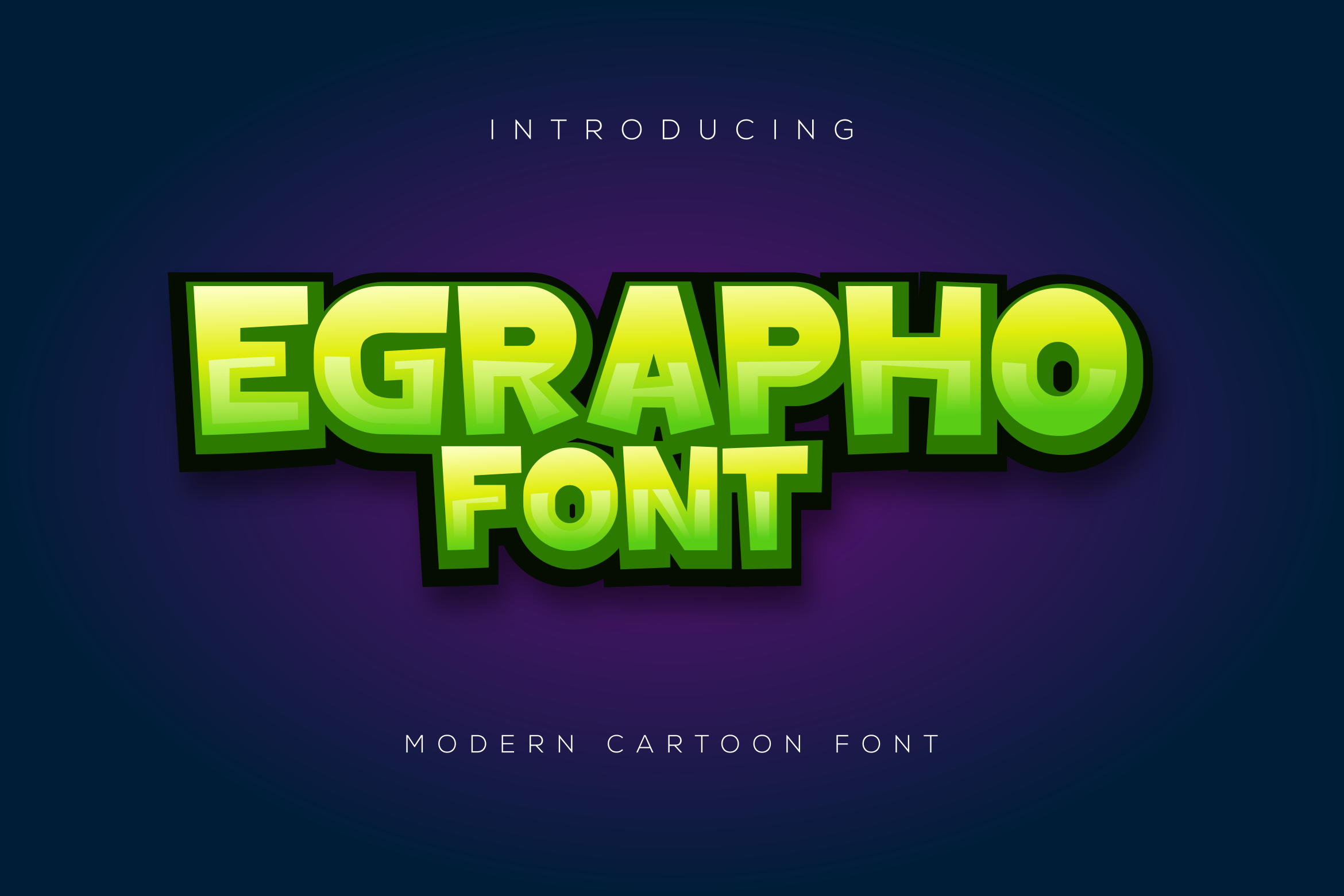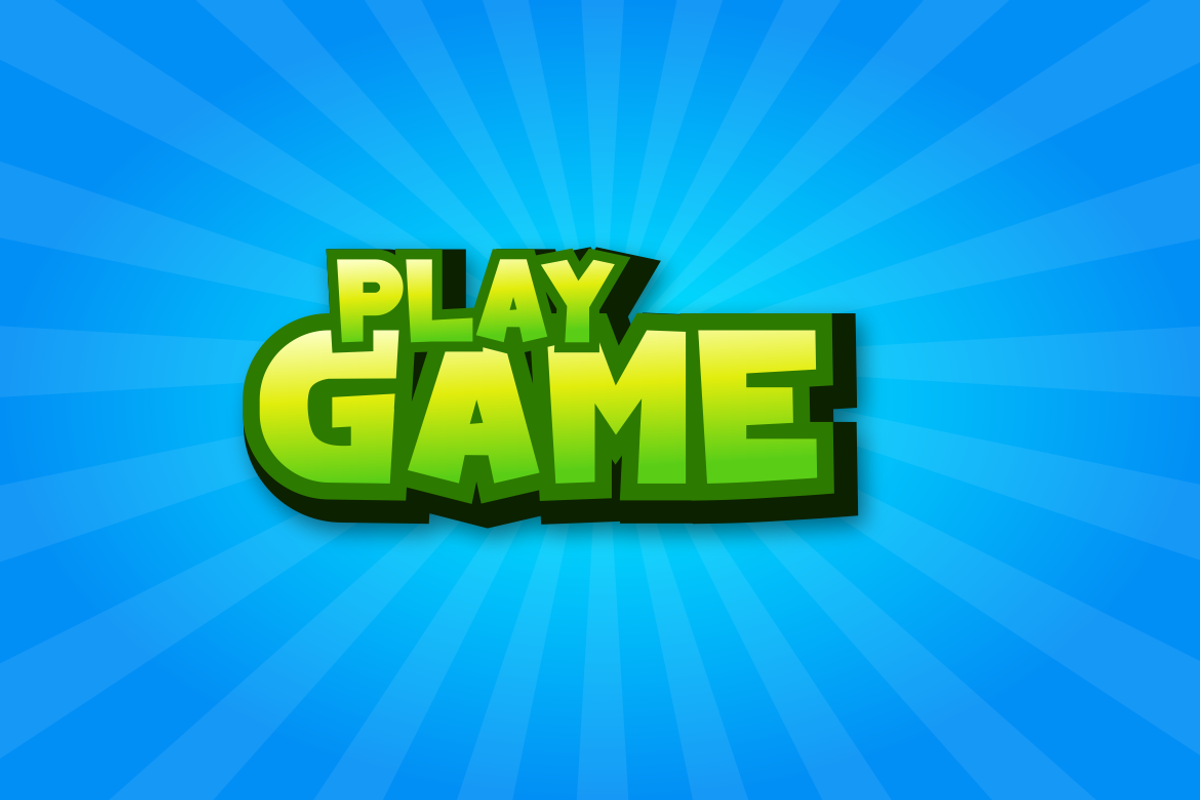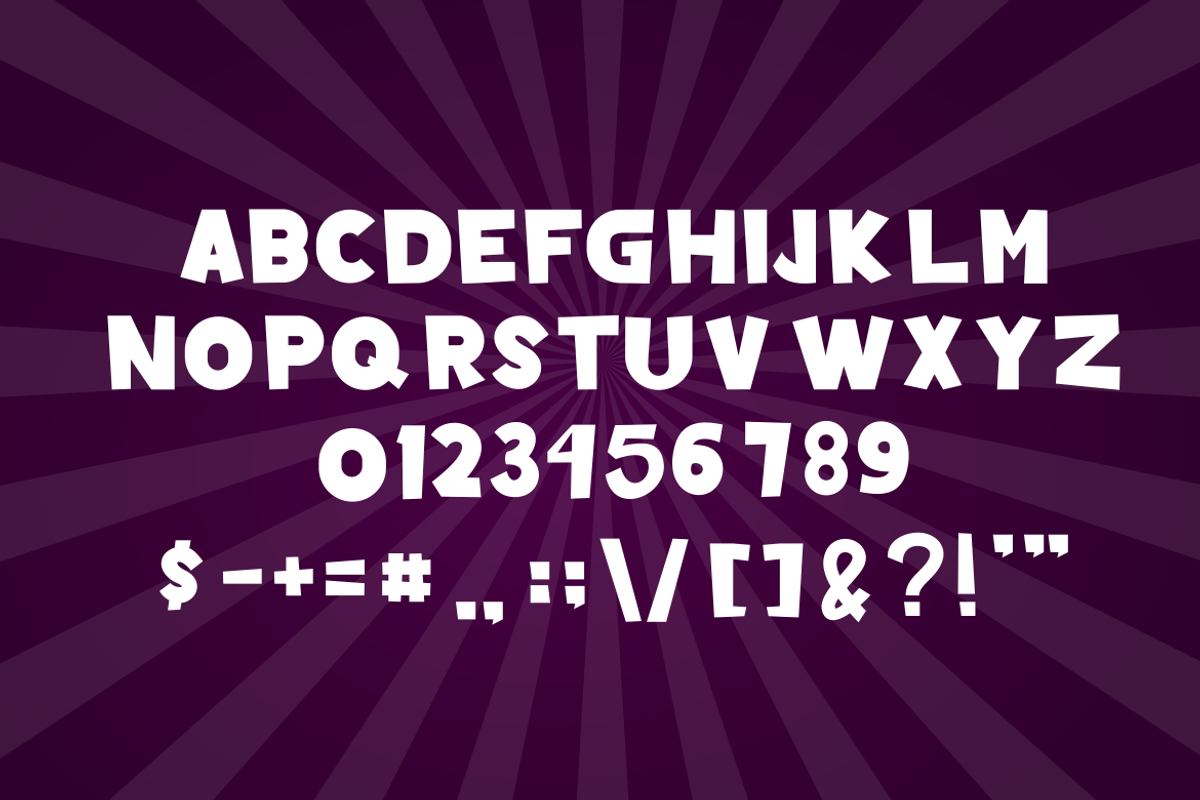
Egrapho Font
Introducing our new product Egrapho Font - Modern Font
Egrapho Font - Modern Font is a bold and authentic display font. The font is suitable for any branding project like logo, t-shirt printing, esport, and many more. outstanding in a wide range of contexts.